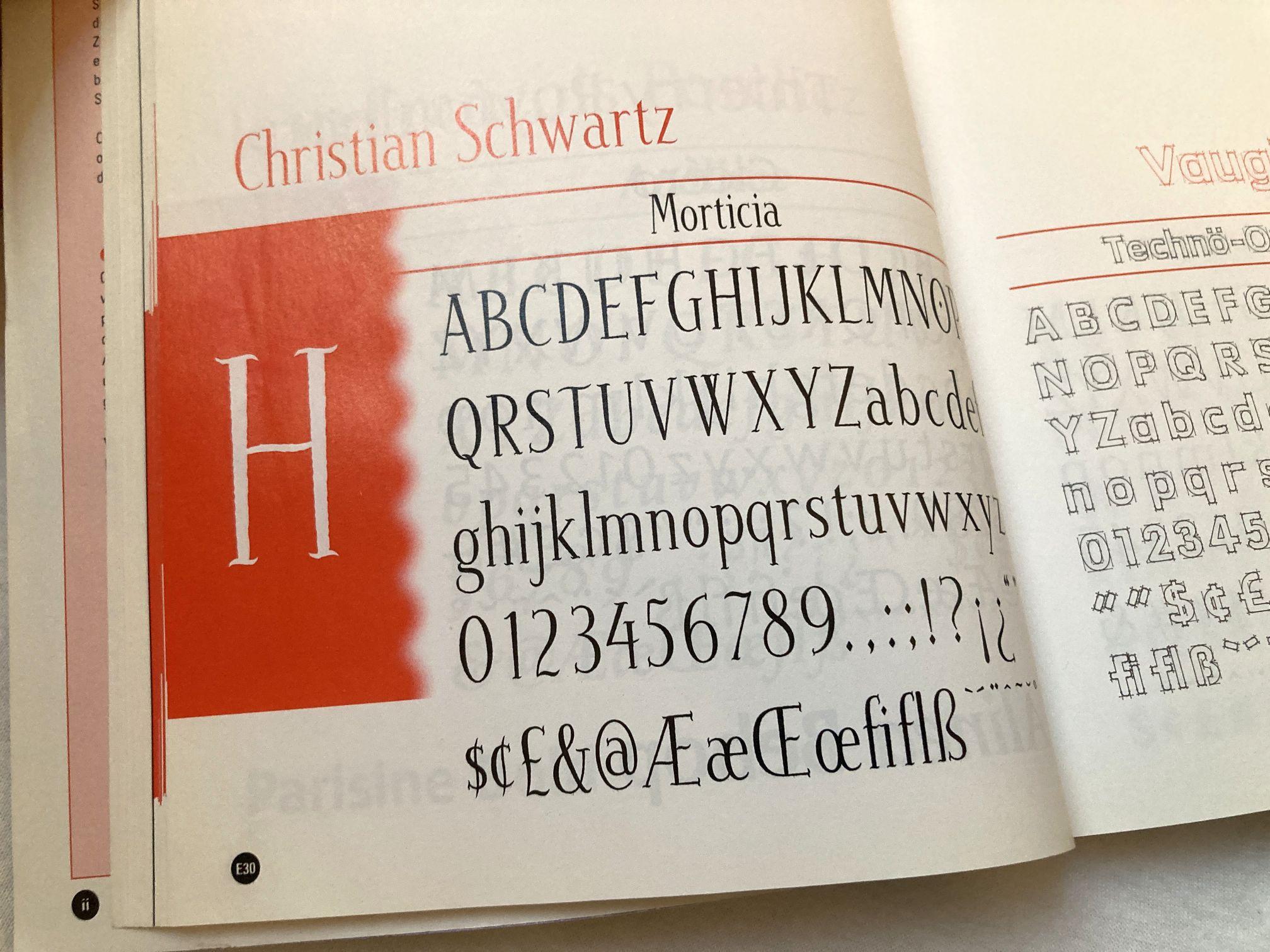
It was fab. This episode had exactly all the ingredients that my brain needed to give it its full attention. Music, mystery, tech, history, science, typography. Glorious.
I'm having some typography fun on my site:
I'm using the CSS :before pseudo-element to put a chunky dark magenta opening quote before <blockquote>s.
For the <blockquote> styling, I currently have the quote marks for :before absolutely positioned, with the <blockquote> explicitly set to relative
If people have a better suggestion to get the layout I'm using without any absolute positioning, I would love to know!
I also switched from a bit font for headings/Open Sans for body to just Libre Franklin — turns out I love grotesques!
Part of the post-apocalyptic fantasy setting I'm writing involves a group of academics who use a single phonetic writing system to transcribe any language. This took me down a rabbit hole of the International Phonetic Alphabet (IPA) unicode and FontForge.
The setting isn't done, but I’m releasing the phonetic fantasy font I built, and its sources. I thought others might want to join the fun. Let me know if you create your own #arcphon fonts:
Since the late 80s, the typeface foundry Emigre Fonts has been publishing a series of specimen books. They were intended as promotionals. But they turned out to be inspirational eye candy for designers.
@letterformarchive compiled forty of them in the book “Emigre Fonts: Type Specimens, 1986–2024.”
It’s nostalgia gold for old-school designers. Something new for the young pups. I could stare at this for hours.
Just thinking about this has made me feel all nostalgic about #Letraset. I created many DIY documents with Letraset back in the day, but they were all consigned to the dustbin long ago.
Letraset gave me my first introduction to #fonts and #typeography. I remember standing in the stationer's looking at all the different fonts on offer and carefully deciding which ones I would spend my pocket money on.